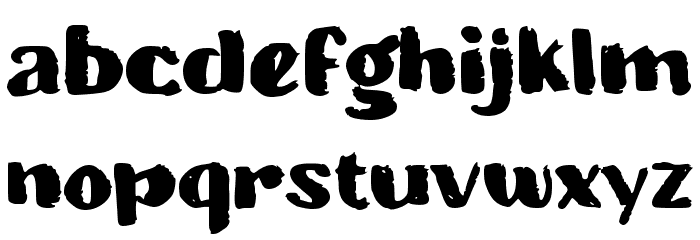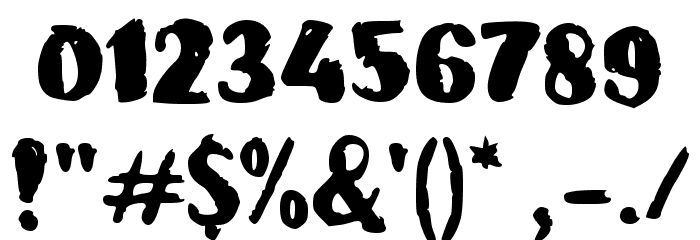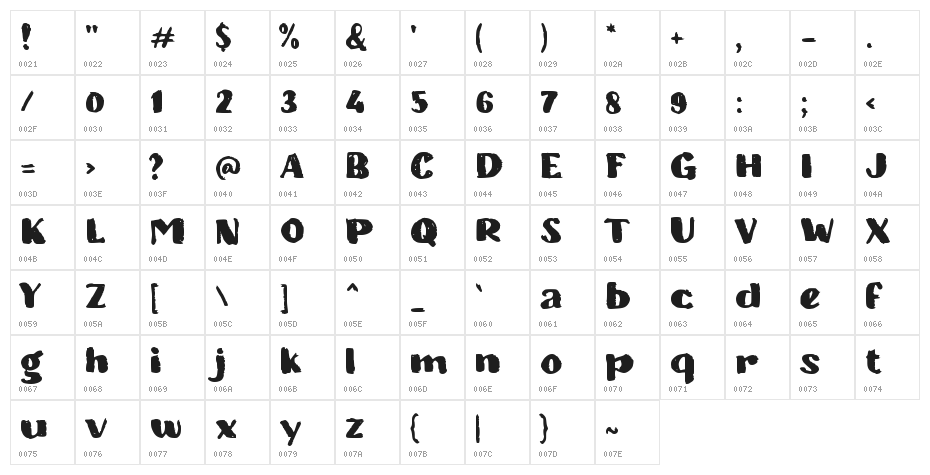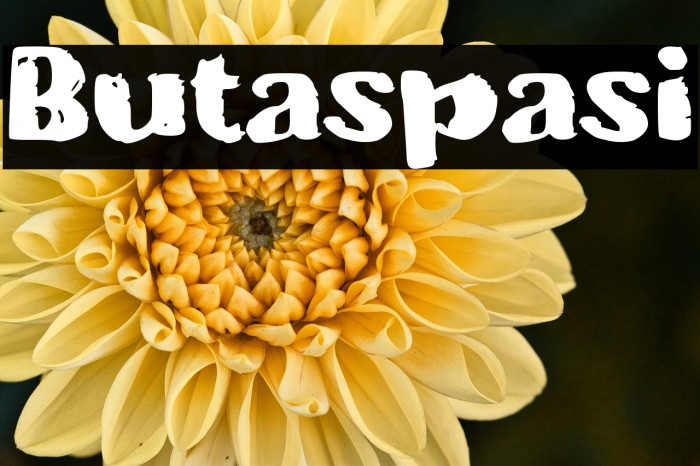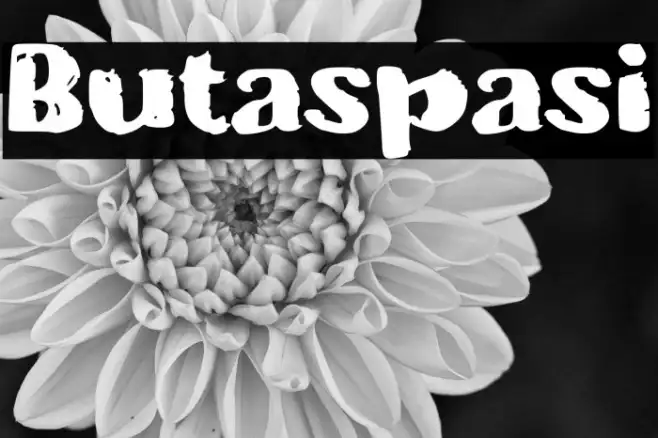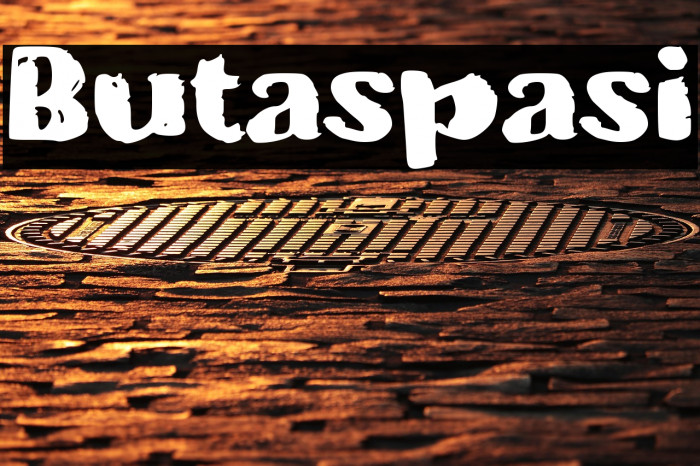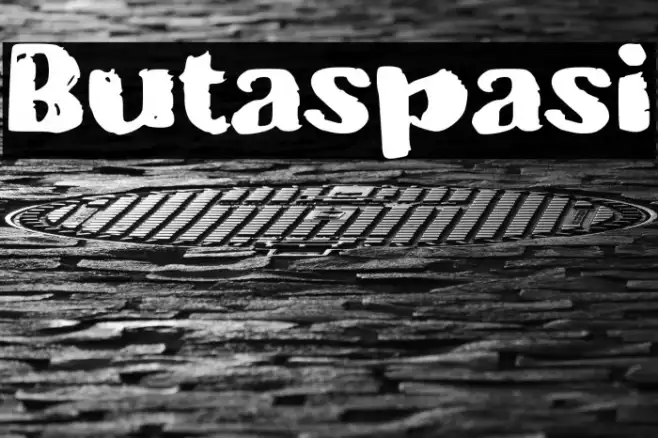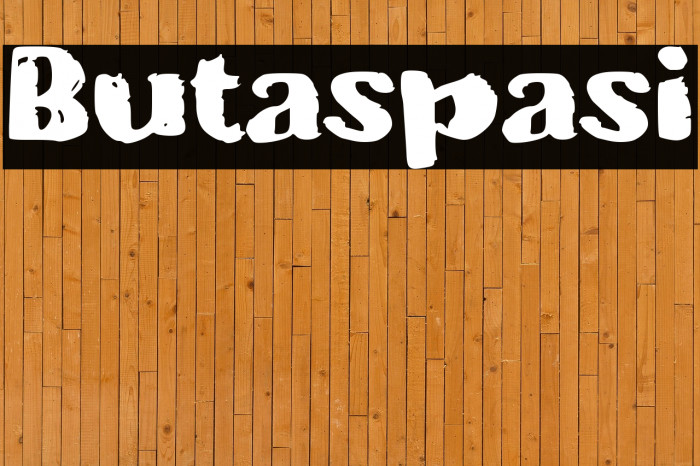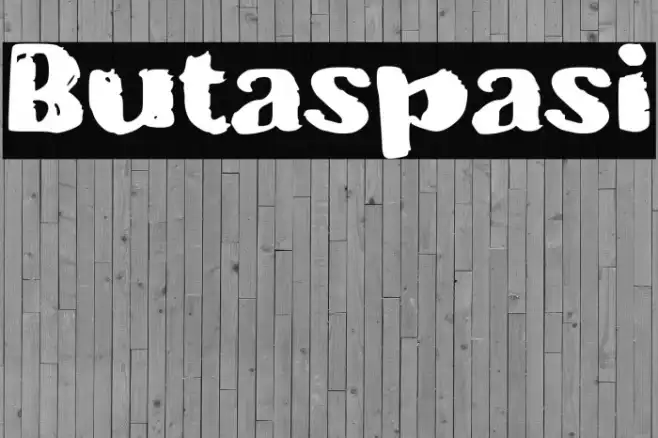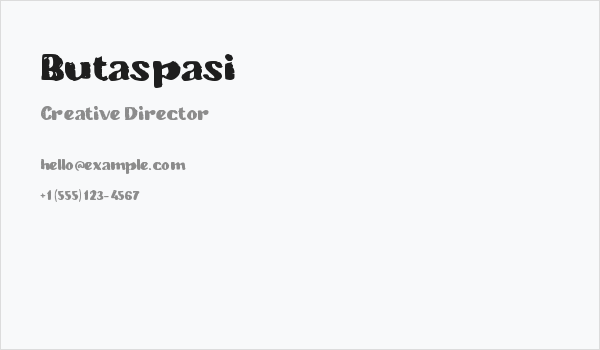
Butaspasi Font
This font features a bold and expressive style with a hand-painted appearance. The characters are irregular and textured, giving them a dynamic and artistic feel. The uppercase and lowercase letters maintain a consistent boldness, while the numbers and special characters share the same rugged aesthetic. The strokes are thick and uneven, adding to the font's organic and spontaneous look. This font is ideal for projects that require a strong visual impact and a creative touch.
A bold, hand-painted style font with textured, irregular characters.
- Proposed Projects: Ideal for posters, album covers, branding, and any creative projects that require a bold and artistic touch.
- Overall Style: Artistic, Expressive